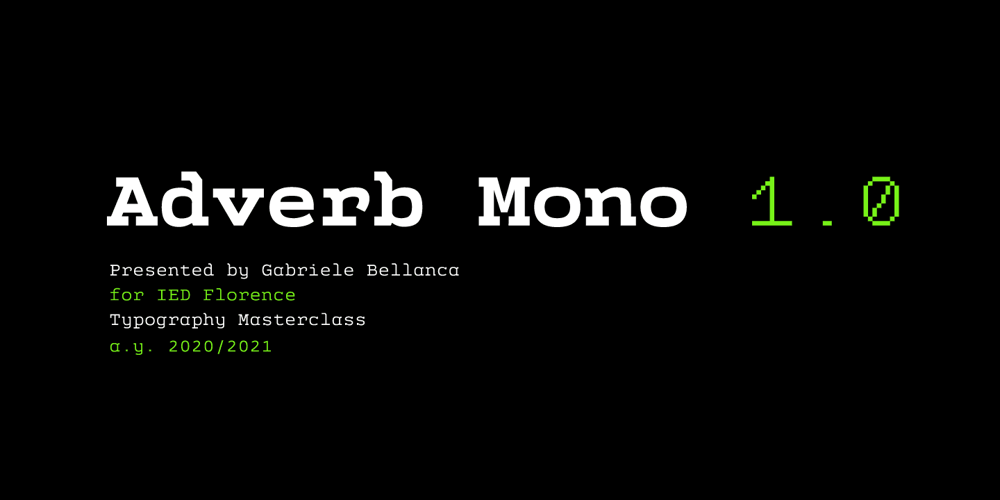
Adverb Mono Font Family was designed by Gabriele Bellanca and published by Rumors Foundry. Adverb Mono contains 6 styles and family package options. Adverb Mono is an atypical monospaced, squared proportional, slab-serif and low contrast typeface inspired by the American Type Founders’ “OCR-A” and the latest work of Adrian Frutiger “OCR-B” designed during the second half of the 20th century.The typeface (in his 1.00 version) counts five different weight, from Thin to Bold, and a pixelated redesign of the regular weight inspired by the retrogaming consoles’ graphics.It counts more than 240 different glyphs continuously updated.Designed by Gabriele Bellanca for IED Florence Typography Masterclass 2020/21. All rights reserved.